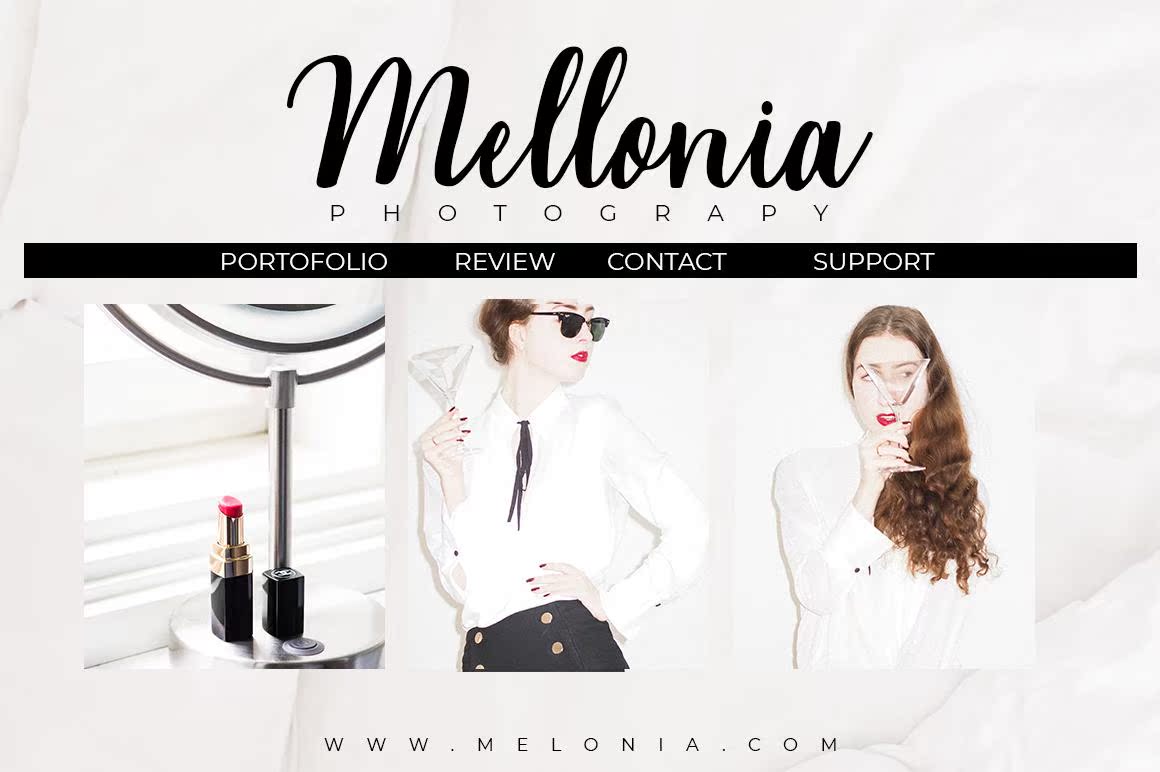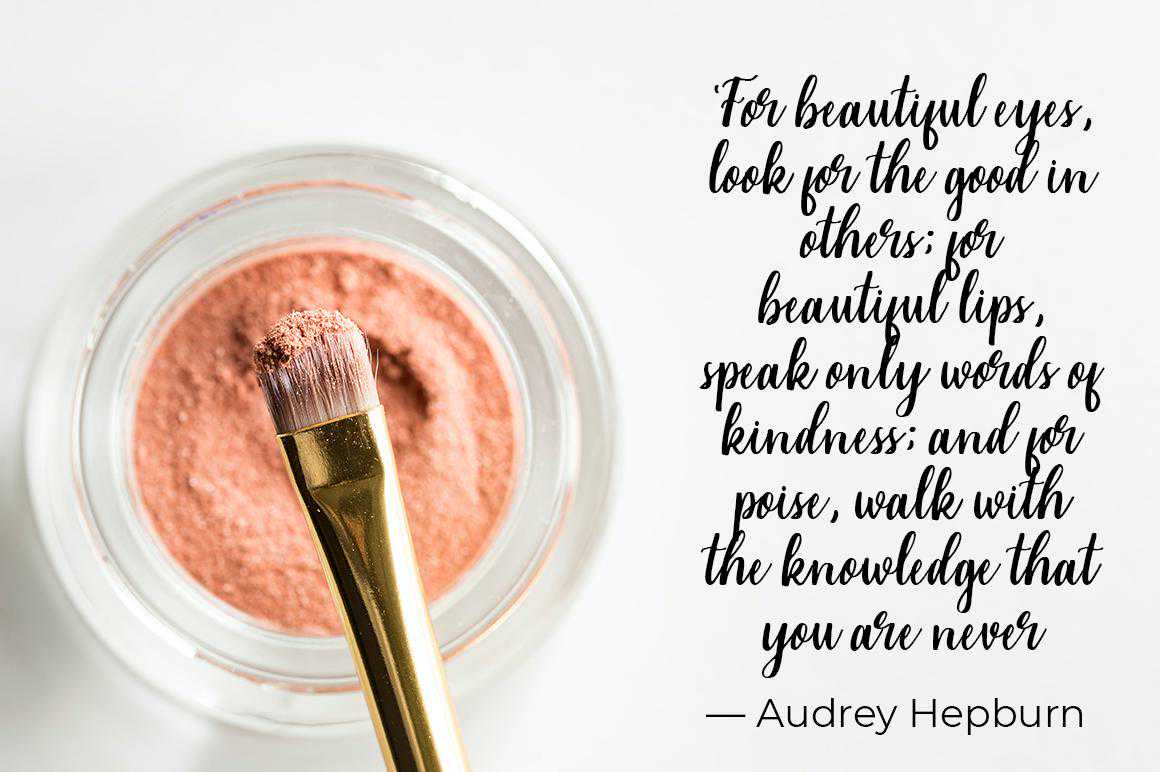
Mallian AisScriptFontWithBrushCalligraphyStyle,IscaligraphyScript FontWithDrushCalligraphyStyle,IscaligraphyScript FontIsPerfect for Branding,Logo Design,Wedding Design,SosialMediaDesign,label,PhototgraphyWaterMak,邀请函,Station和任何项目,phototgrapywatermak、邀请函、车站和任何项目。